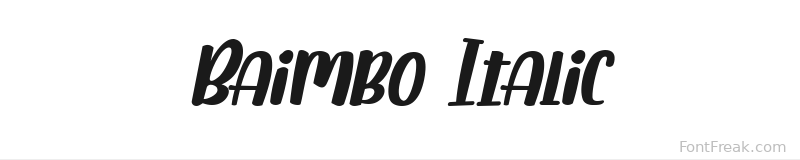
Baimbo Italic
Baimbo Italic is a stylish display font designed by Kong Font, characterized by its bold and playful nature. This font falls into the category of decorative typefaces, making it an excellent choice for projects that require a touch of personality and flair. The strokes of Baimbo Italic exhibit a moderate weight with a smooth, flowing design that captures attention without overwhelming the viewer. The italic style introduces a dynamic slant, enhancing its visual appeal and providing a sense of movement. The spacing is well-balanced, allowing for easy readability while still maintaining a distinct character.
Baimbo Italic is particularly suited for various creative applications. It shines in wedding invitations, where its elegant yet informal vibe adds charm to the occasion. Additionally, it's a great fit for movie posters, offering a unique aesthetic that can help convey the film's theme. Restaurant menus can also benefit from this font, providing an inviting look that enhances the dining experience. Beyond these uses, Baimbo Italic works well for social media graphics and promotional materials, capturing the eye of potential customers.
The target audience for Baimbo Italic includes graphic designers looking to infuse creativity into their projects, small business owners wanting to make their branding memorable, and content creators in search of a distinctive typeface that resonates with their style.
What sets Baimbo Italic apart is its ability to combine sophistication with a playful twist, making it versatile enough for both formal and casual applications. With its freeware license, designers can enjoy the benefits of this unique font without any cost, making the Baimbo Italic font free download an attractive option for anyone seeking to elevate their visual communication.